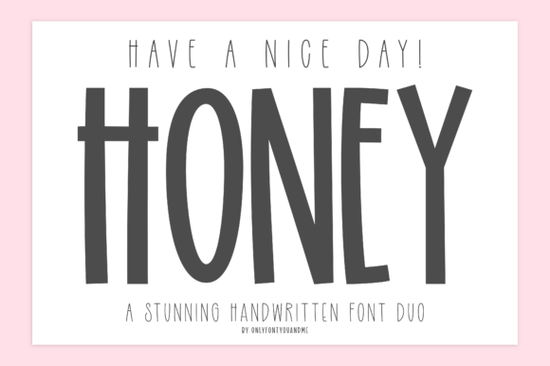
If you're looking for a font that adds a warm, friendly, and handcrafted feel to your designs, the Have a Nice Day Honey Font is a great choice. This charming handwritten font duo combines a bold, playful display type with a light, narrow handwritten companion, making it perfect for a variety of creative projects.
What Makes Have a Nice Day Honey Font Special?
The Honey font in this duo features quirky proportions, rounded edges, and an organic, hand-drawn feel. It's cheerful and modern, making it ideal for adding a bold personality to your designs. The secondary Have A Nice Day! font, on the other hand, is delicate and airy, perfect for accents and supporting text. Together, they create a balanced and welcoming aesthetic.
Who Can Use This Font Duo?
This font is versatile and can be used by:
- Designers who want to add a personal touch to their branding and graphic design projects.
- Crafters looking to create unique and inviting greeting cards, invitations, and DIY projects.
- Print-on-demand sellers who need a font that stands out and feels handcrafted.
- Small businesses aiming to create a warm and friendly brand image.
- Creative hobbyists who enjoy experimenting with different fonts in their personal projects.
Ideas for Using Have a Nice Day Honey Font
Here are some creative ways to use the Have a Nice Day Honey Font:
- Branding and Logos: Use the bold Honey font for your main logo and the lighter Have A Nice Day! font for subtext or taglines.
- Greeting Cards and Invitations: Combine both fonts to create a unique and inviting look for special occasions like birthdays, weddings, and baby showers.
- Social Media Graphics: Add a handcrafted feel to your social media posts and stories, making them more engaging and relatable.
- Posters and Flyers: Use the bold Honey font for headlines and the lighter Have A Nice Day! font for details, creating a visually appealing and easy-to-read layout.
- Product Packaging: Enhance the packaging of your products with a font that feels personal and welcoming, making your brand stand out.
How Does It Compare to Other Fonts?
While there are many handwritten fonts available, the Have a Nice Day Honey Font stands out for its unique combination of bold and delicate elements. Here’s how it compares to some other popular options:
- Varsity Sport Army Font: This font is more athletic and structured, making it ideal for sports-related designs. In contrast, Honey has a more casual and friendly feel.
- Wildflower School Font: Wildflower School has a more traditional, school-like appearance, while Honey offers a modern and playful twist.
- Stacked Chunky Font: Stacked Chunky is bolder and more geometric, suitable for a different kind of impact. Honey is more organic and hand-drawn, giving it a softer, more approachable look.
- Crafty Bloom Font: Crafty Bloom is more decorative and floral, perfect for feminine and elegant designs. Honey is more versatile and can be used in a wider range of projects.
Tips for Using Have a Nice Day Honey Font Effectively
To get the most out of the Have a Nice Day Honey Font, consider these tips:
- Balance Bold and Light: Use the bold Honey font for headlines and the lighter Have A Nice Day! font for body text to create a harmonious and readable layout.
- Experiment with Colors: Play with different color combinations to find the one that best suits your project. Pastel colors can enhance the soft, friendly feel of the font.
- Combine with Simple Elements: Pair the font with simple, clean design elements to let the font's personality shine through without overwhelming the overall design.
- Use for Handwritten Effects: If you need a handwritten look, this font is perfect. It adds a personal touch without looking too formal or rigid.
Next Steps
Now that you know more about the Have a Nice Day Honey Font, here’s a quick checklist to help you start using it effectively:
- Test Different Combinations: Experiment with the bold and light versions to see which works best for your project.
- Brainstorm Ideas: Think about the different ways you can use the font in your designs, whether it’s for branding, social media, or print-on-demand products.
With the Have a Nice Day Honey Font, you can add a touch of warmth and friendliness to your designs, making them more inviting and memorable. Give it a try and see how it can transform your creative projects.